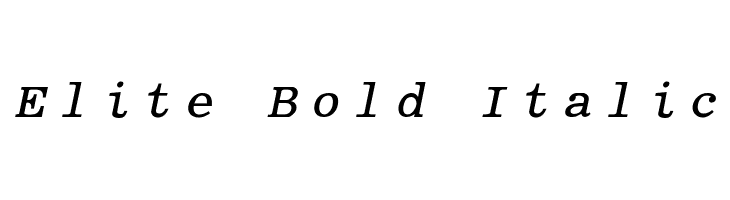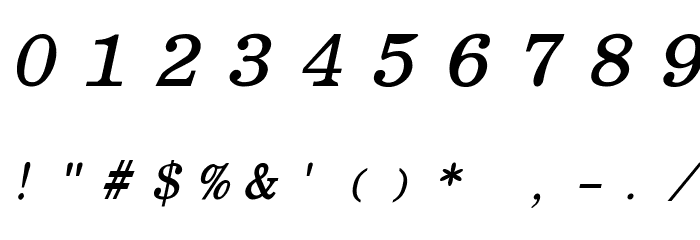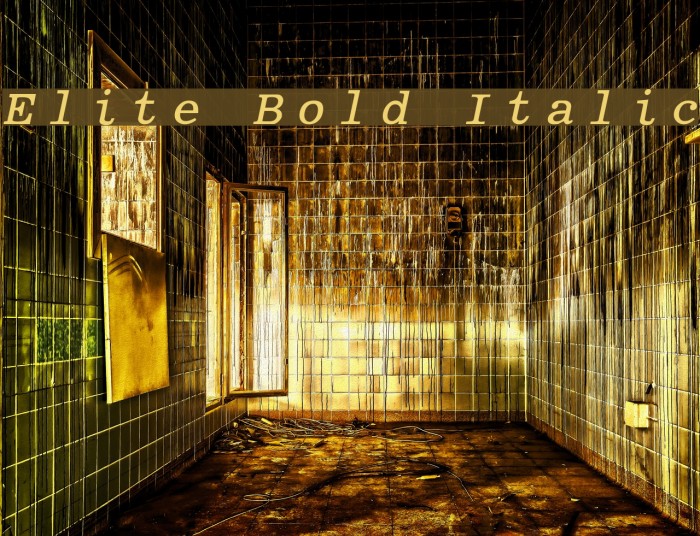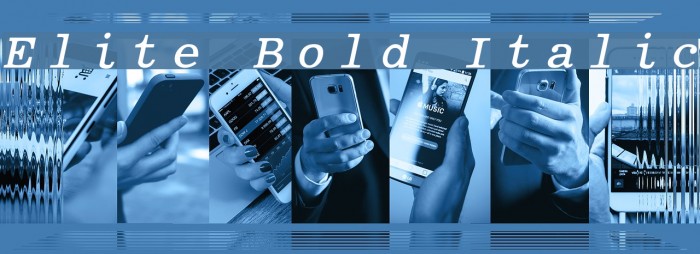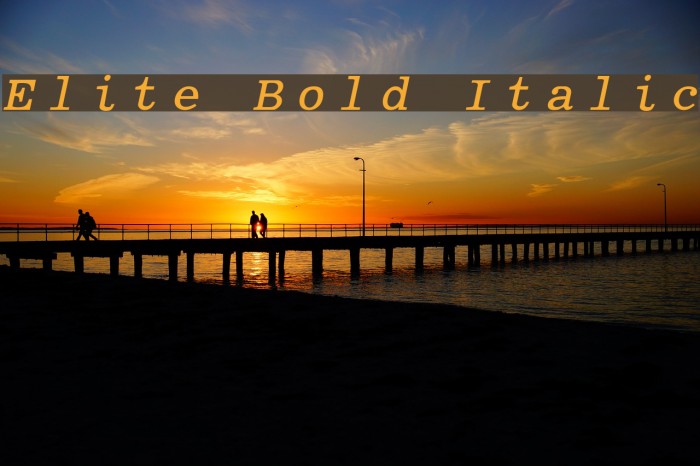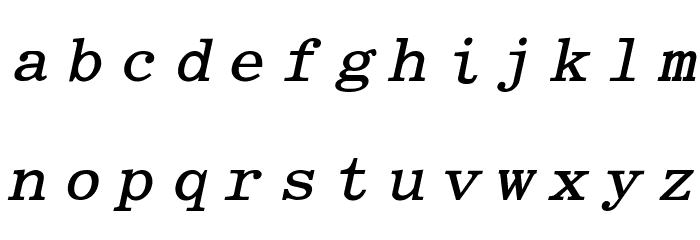
Elite Bold Italic Font
Elite Bold Italic Description
This font exhibits a classic serif style with a bold and italicized appearance, giving it a strong yet elegant presence. The serifs are pronounced, adding a touch of sophistication and tradition. The italic slant provides a sense of movement and dynamism, making it suitable for both formal and creative applications. The bold weight ensures that the characters stand out, while the overall design maintains readability. The numerals and special characters are consistent with the alphabetic characters, maintaining the same bold and italicized style.
A bold, italic serif font with a classic and elegant style from Typewriter fonts.
- Proposed Projects: Ideal for book covers, formal invitations, branding materials, and editorial design.
- Overall Style: Classic
- Use Case: Headlines, Logos, Editorial design